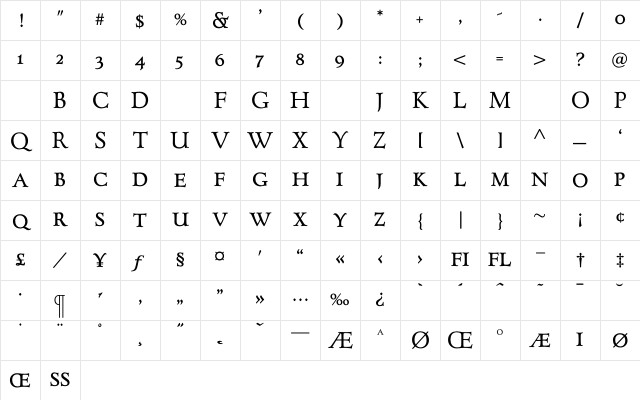
ForumTitlingBoldOldStyleFigs Regular
Design Context for ForumTitlingBoldOldStyleFigs
ForumTitlingBoldOldStyleFigs carries the refined structure of traditional serif typography, with bracketed terminals and considered proportions that communicate credibility and craft. Its bold stroke weight gives it real presence on the page.